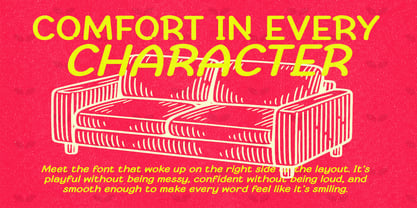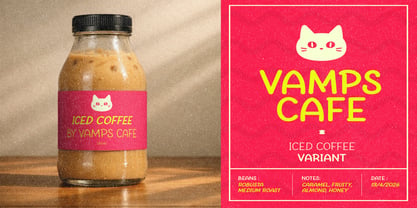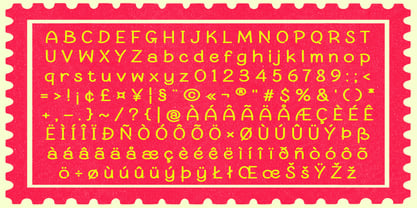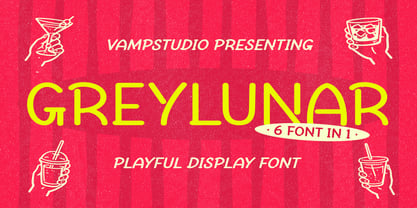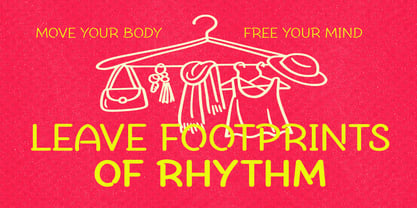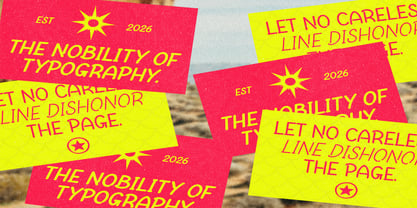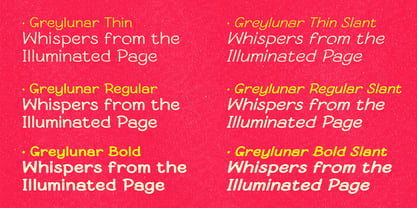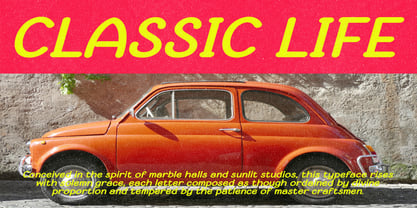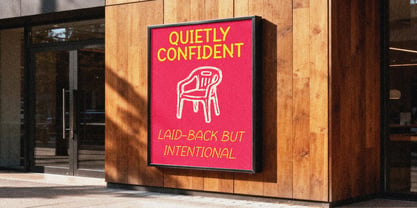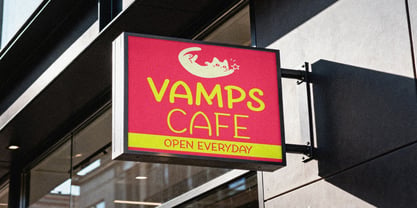
Grey lunar
by Vampstudio
The Grey lunar Font Family was designed by Irfan syah and published by Vampstudio. Grey lunar contains 6 styles and family package options. More about this family
Grey Lunar is a modern minimalist sans serif font family designed for clean professional typography. Featuring balanced proportions, smooth curves, and versatile weights with slanted styles, Grey Lunar works beautifully for branding, web design, editorial layouts, packaging, and user interface projects.
Its modern simplicity delivers excellent readability while maintaining stylish contemporary aesthetics.
Key Features
• Modern sans serif family
• Multiple weights & slant styles
• Clean minimalist design
• Uppercase & lowercase
• Multilingual support
• Professional branding typography